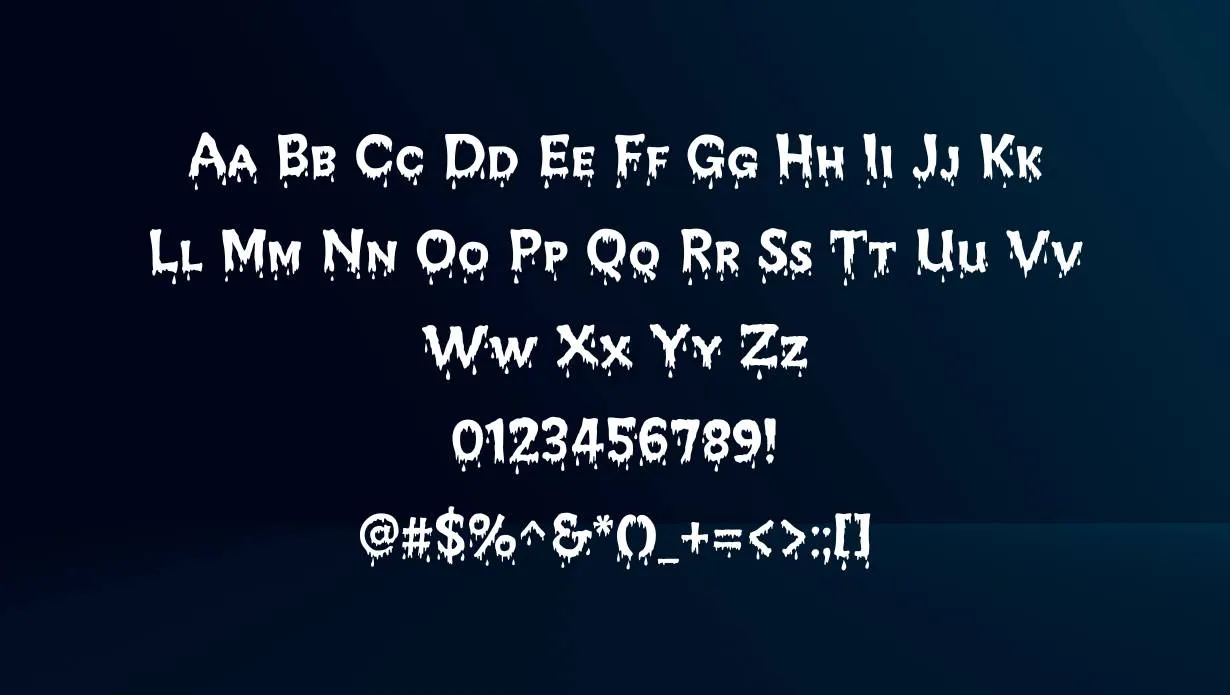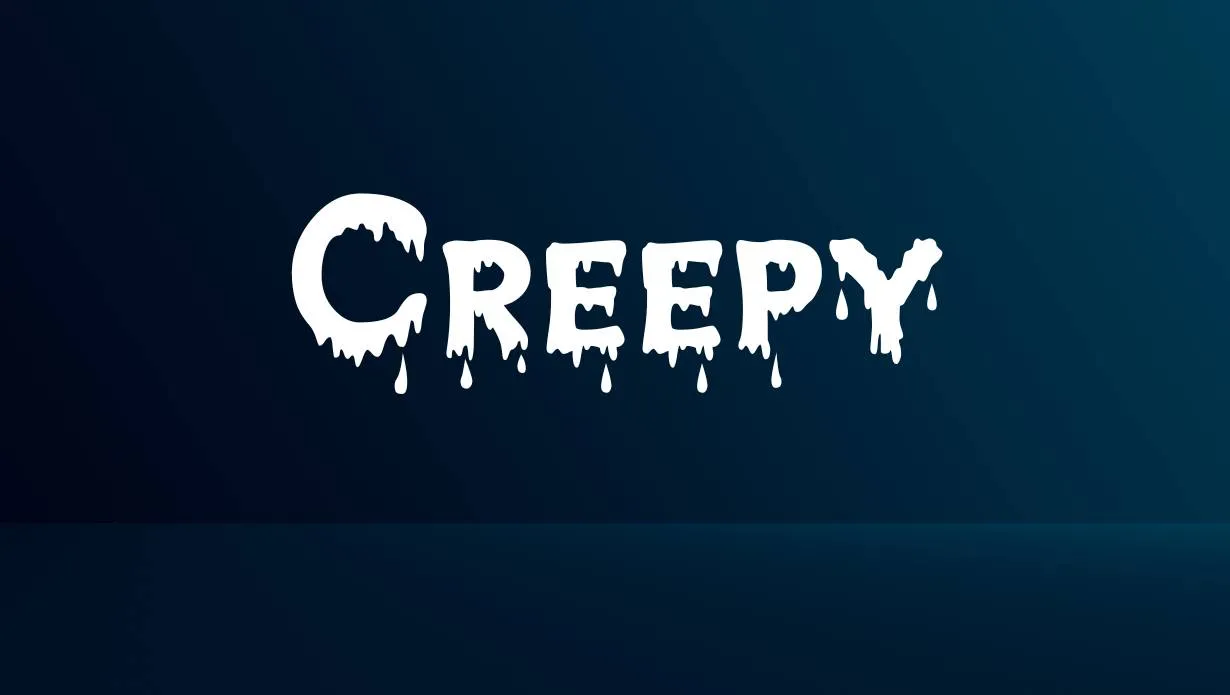
As the name designs, creepy font goes best for all those designs where you want to bring something unique and scary. For instance, for all the Halloween designs, this font would be one of the best typefaces to apply. Designers usually apply this font for such types of events or parties.
Creepy Font Usage
With the font name, you can easily guess where this font should be applied. If you are working on Halloween designs, you can always easily consider this font for such a purpose. Furthermore, you can apply the font to the designs of different events where you want something unique and impressive.
What Type of Font Is Creepy Font?
It is a unique horror typeface that you can use in all odd designs. It conveys the message beautifully and makes the design stand out. You can get the font in different versions and can download free of cost for personal use.
Where You Can Use Creepy Font?
You can apply the font on various designs be it Halloween or other fancy parties. Furthermore, you can apply the font on Logos, Titles, banners, advertisements, etc.